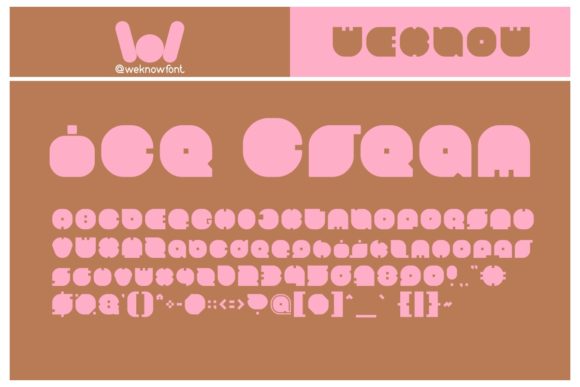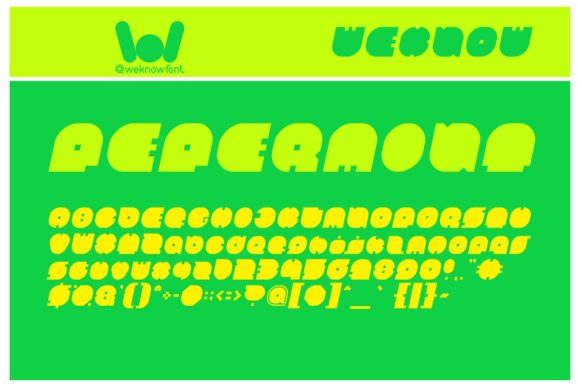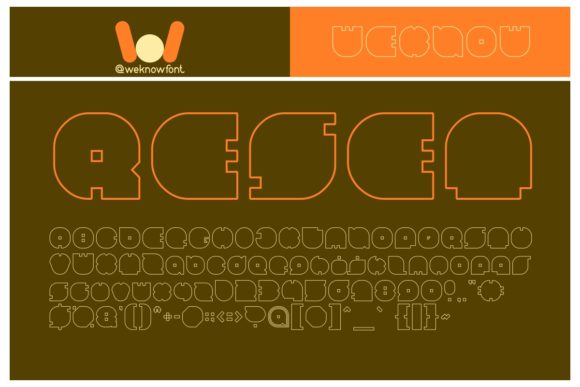
Introduction to Helmet Font
Helmet is a bold and chunky lettered display font.
Incredibly unique, this font is ideal for magazine headlines, games, posters, logos and so much more .